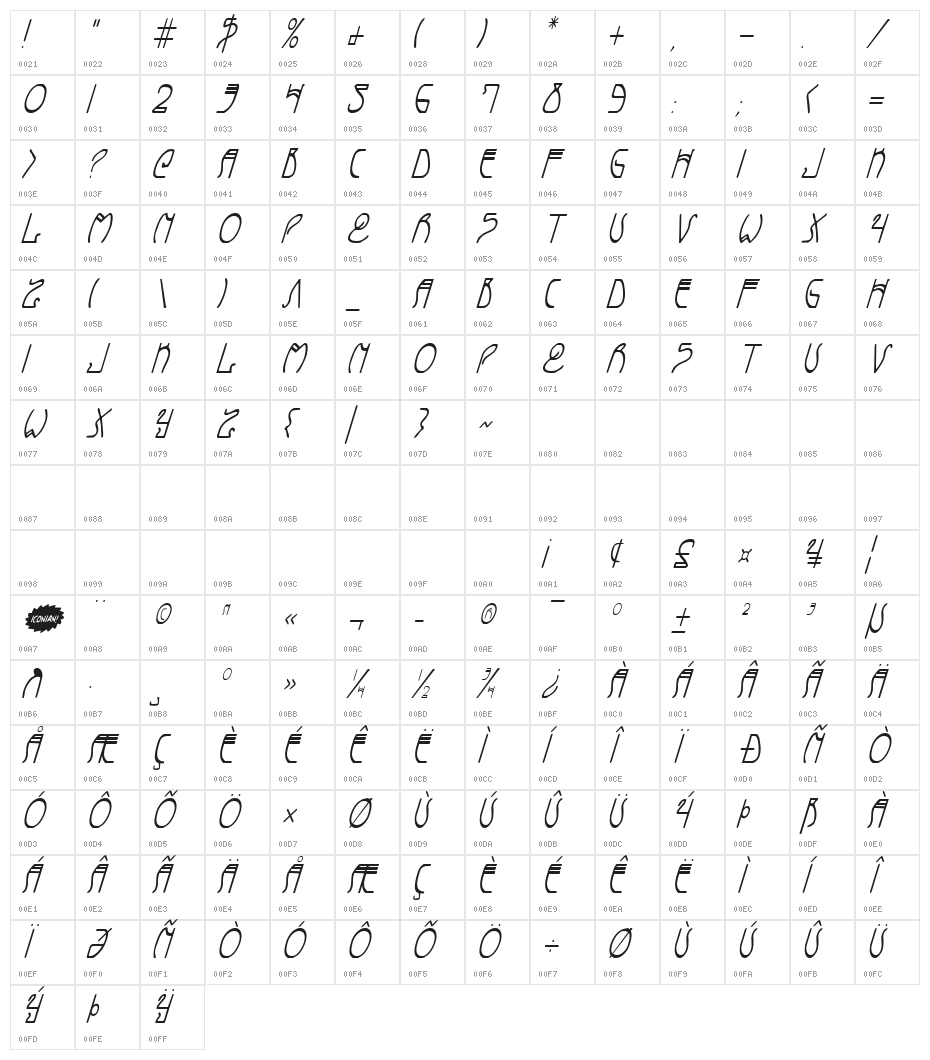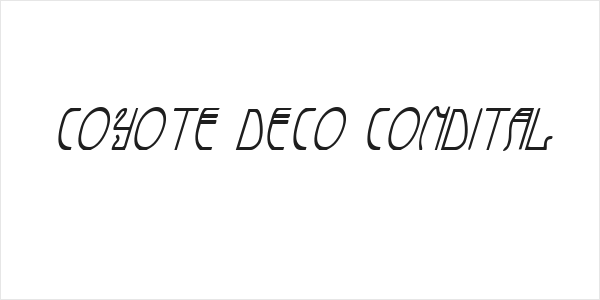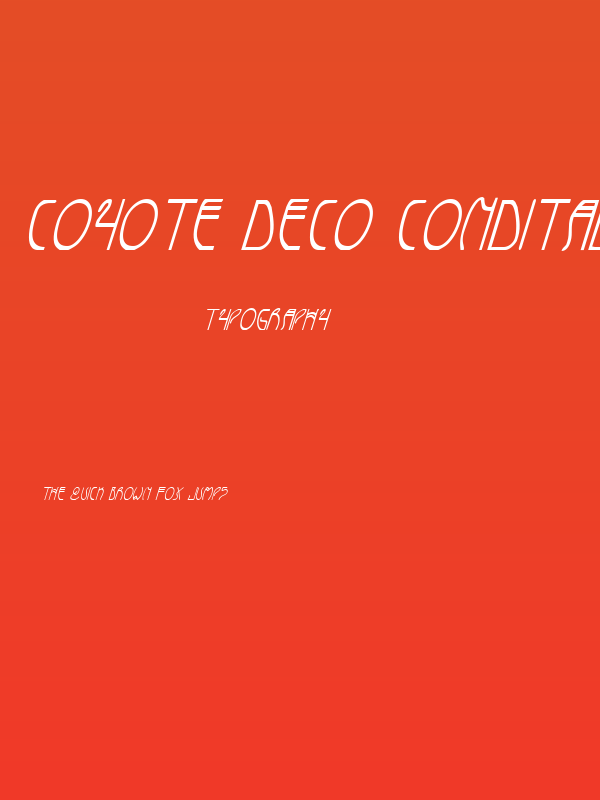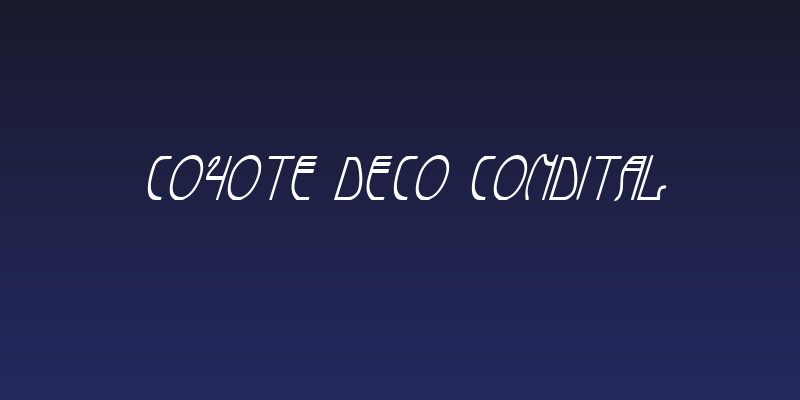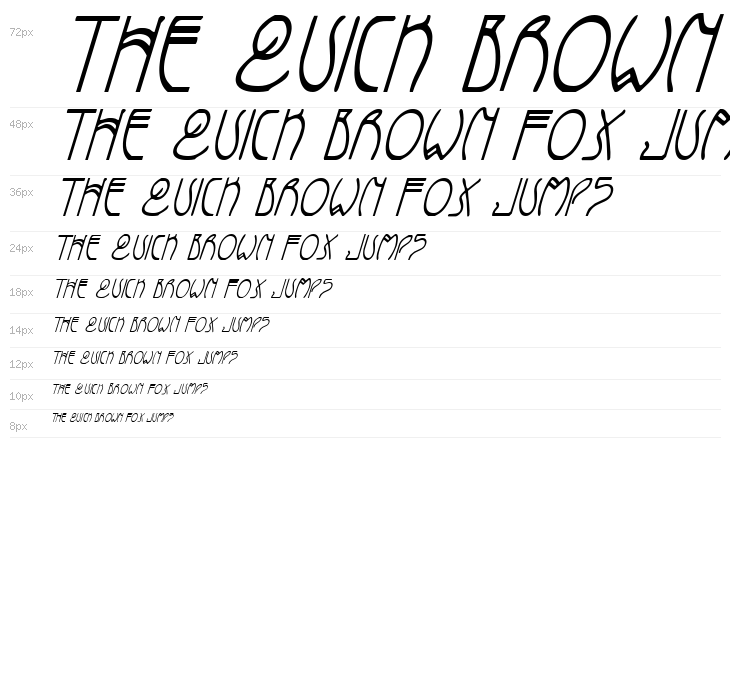
Coyote Deco CondItal Font
Coyote Deco CondItal Description
This font features a unique blend of deco and modern styles, characterized by its condensed and italicized form. The letters are elongated and slightly slanted, giving a sense of motion and elegance. The strokes are consistent in width, providing a uniform appearance across all characters. The uppercase letters have a distinct geometric flair, while the lowercase letters maintain a cohesive look with subtle curves. Numbers and special characters follow the same stylistic approach, ensuring a harmonious overall design. This font is ideal for creative projects that require a touch of sophistication and modernity.